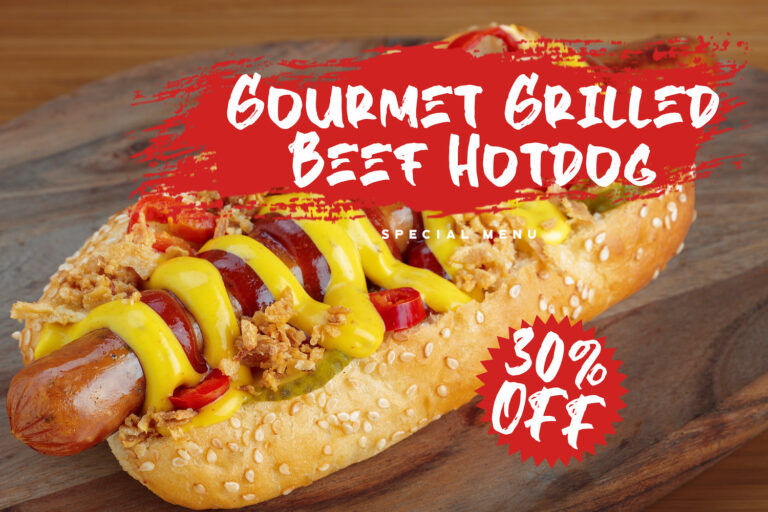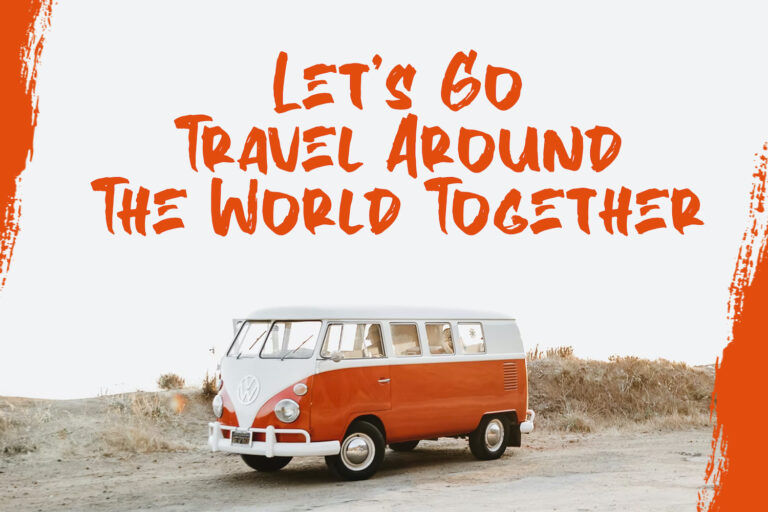
Dragon Knight
Dragon Knight is a bold textured font created with hand brush strokes, designed for designs that need instant energy—such as logos, posters, social media headers, packaging labels, event brochures, and promotional graphics. Its rough brush strokes and slightly imperfect edges give your message a standout handmade feel on photos, textured backgrounds, or minimalist layouts.
This font is perfect for projects such as streetwear and apparel graphics, travel/outdoor branding, food & beverage promotions, music or festival posters, YouTube/streaming thumbnails, and shop or café signage. It is less suitable for long paragraphs, UI/UX text, corporate presentations, legal/medical layouts, or anything that requires small-size clarity and strict typographic consistency—its expressive brush texture can become noisy when scaled down or used in dense text.
Choose Dragon Knight if you want a contrasting look: thick strokes, a strong presence, and a natural hand-painted rhythm that adds character without requiring additional illustration.
For best results, use it only for titles and short phrases, slightly increase letter spacing if it feels too tight, and pair it with a clean sans-serif font for supporting text. Use high-contrast backgrounds, avoid overly dense effects, and let the brush texture look more natural—larger sizes look the most premium.